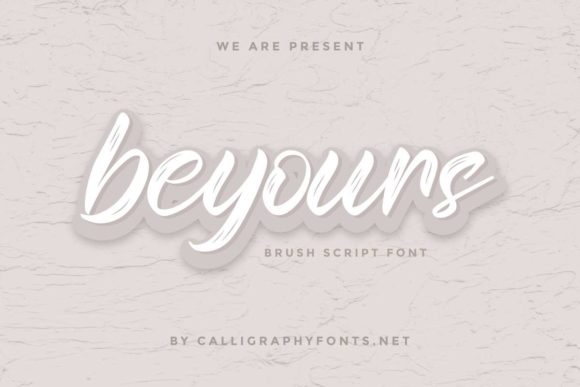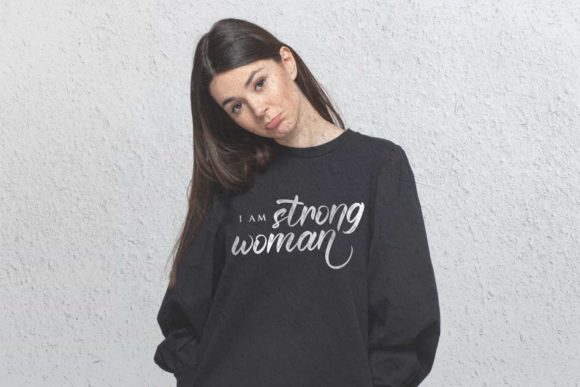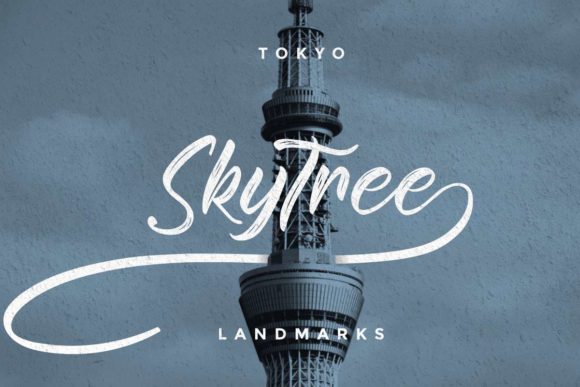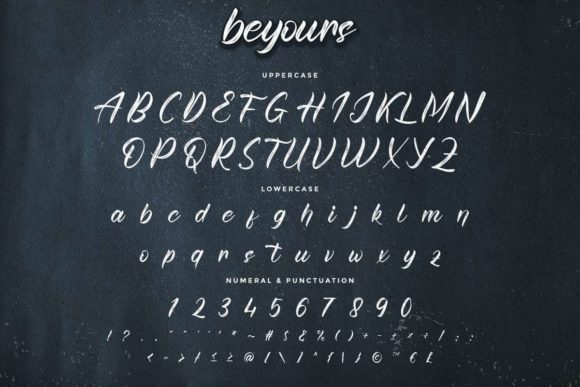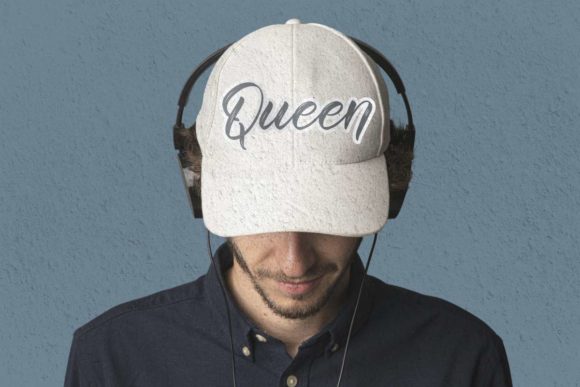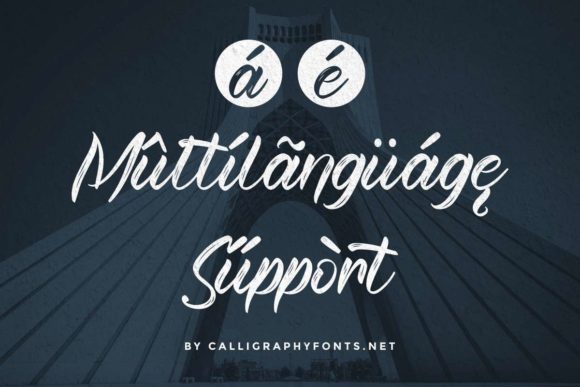
Beyours Font: Elevate Your Designs with Delicate Elegance
In the world of typography, a font can make or break a design. For designers and crafters seeking to infuse their projects with a touch of sophistication and whimsy, the Beyours font is an exceptional choice. This delicate and elegant handwritten font is poised to transform your branding, logos, stationery, business cards, flyers, and more with its casual yet refined aesthetic.
The Charm of Beyours Font
Beyours is not just a font; it’s an experience. Its delicate strokes and elegant flow bring a sense of personal touch to any design, making it instantly more relatable and engaging. The casual look of Beyours is deceptively versatile, capable of adapting to a wide range of design needs. Whether you’re crafting a logo that needs to stand out with simplicity, designing stationery that reflects your brand’s personality, or creating business cards that make a lasting impression, Beyours is up to the task.
One of the key advantages of the Beyours font is its incredible versatility. Here are a few ways you can incorporate Beyours into your designs:
- Branding: Establish your brand’s identity with a font that exudes elegance and approachability. Beyours can help you create a memorable brand image that resonates with your target audience.
- Logo Design: A logo is often the first impression potential customers have of your brand. With Beyours, you can create a logo that is both simple and sophisticated, making your brand stand out.
- Stationery: Elevate your business correspondence with beautifully designed stationery that reflects your brand’s personality. Beyours adds a touch of class to letters, invoices, and thank you cards.
- Business Cards: Make your business cards more than just a piece of paper with contact information. Use Beyours to add a personal touch that makes your cards memorable.
- Flyers and Brochures: Whether you’re promoting an event, a product, or a service, Beyours can help you create eye-catching flyers and brochures that capture attention and convey your message with elegance.
Why Choose Beyours Font?
Choosing a font for your design project can be overwhelming, given the numerous options available. However, Beyours stands out for several reasons:
- Elegance: Beyours brings a level of sophistication to your designs without appearing too formal. Its elegance is effortlessly casual, making it perfect for brands that want to appear approachable yet refined.
- Readability: Despite its delicate nature, Beyours is remarkably readable, even at smaller sizes. This makes it an excellent choice for body text, aside from its use in headings and titles.
- Uniqueness: In a sea of generic fonts, Beyours offers a unique flair that can help your designs stand out. Its distinctive look ensures that your brand doesn’t get lost in the crowd.
Beyours font is more than just a typeface; it’s a design companion that can elevate your projects with its delicate and elegant handwritten charm. Its versatility, readability, and unique flair make it an invaluable asset for designers and crafters looking to add a touch of sophistication and whimsy to their designs. Whether you’re working on branding, logos, stationery, or promotional materials, Beyours is sure to inspire and brighten up your creations.